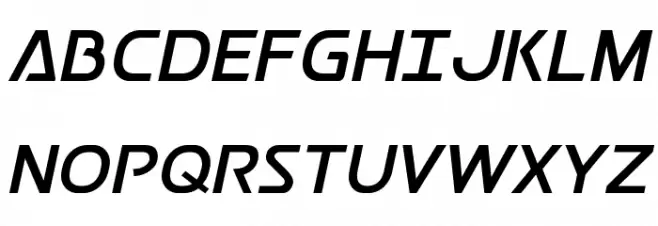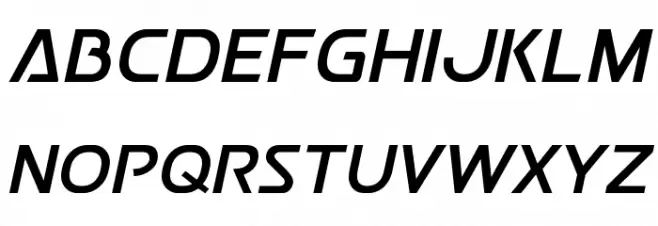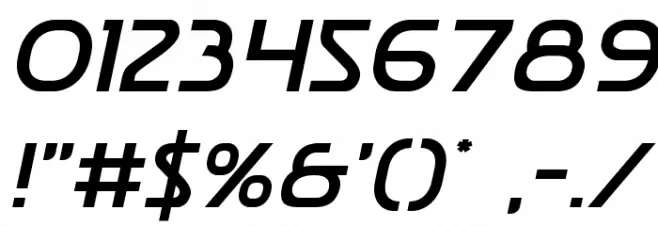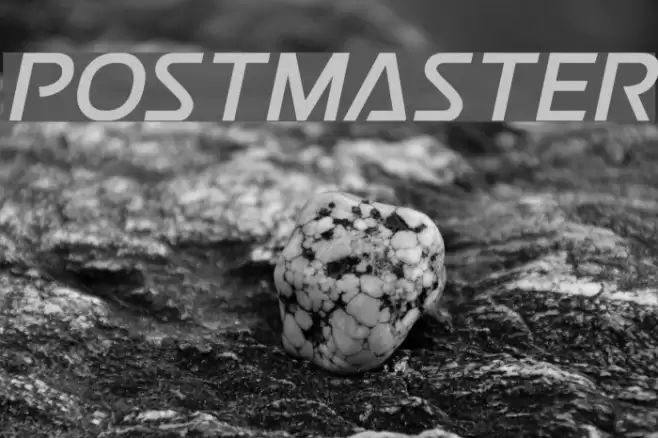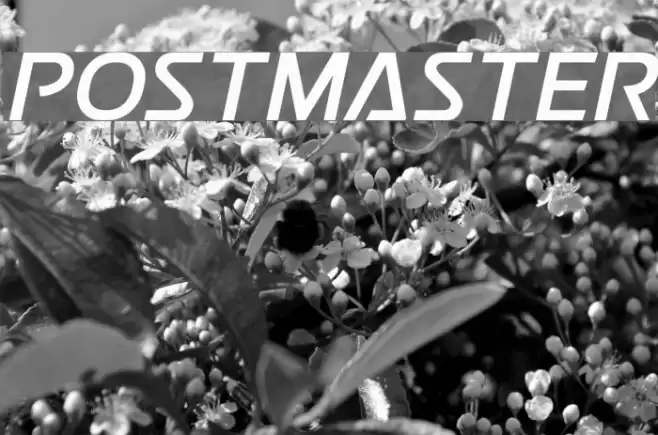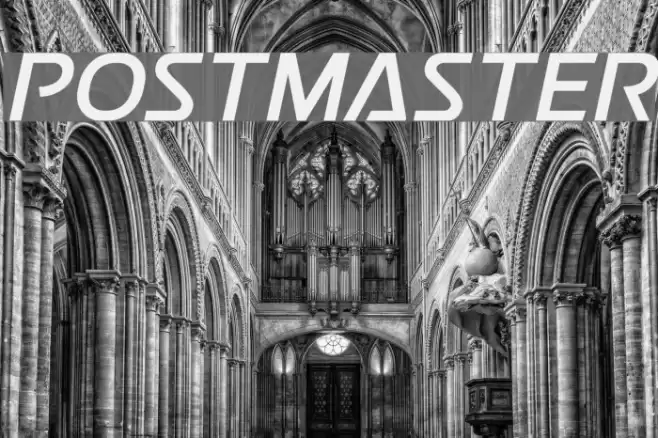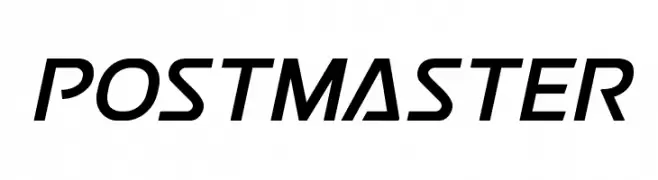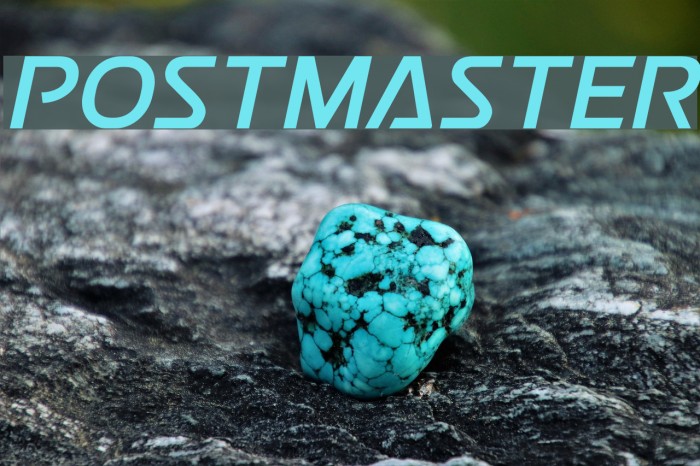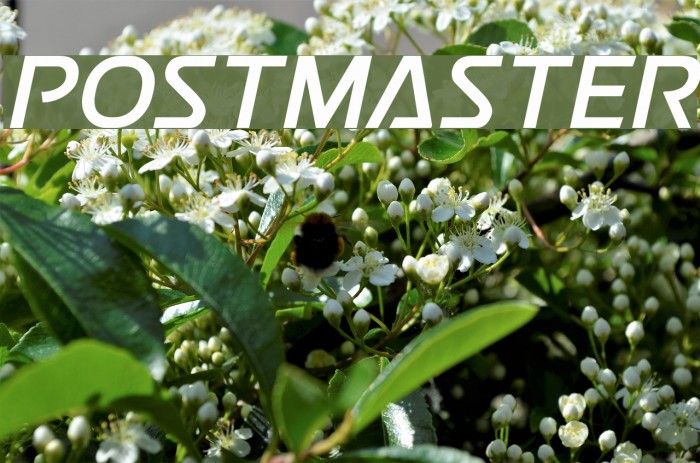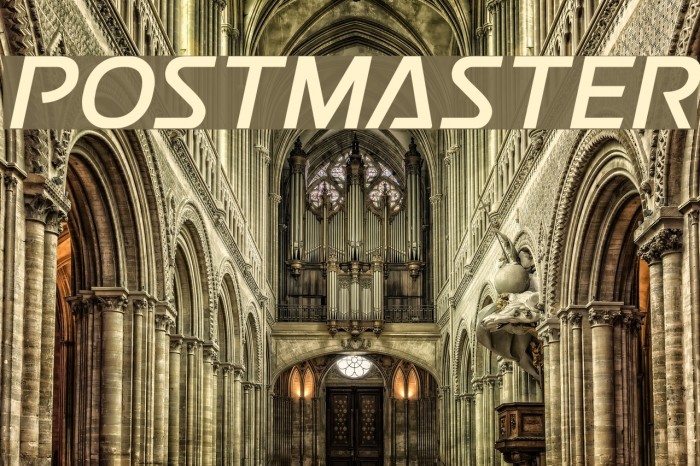
Postmaster
This font features a sleek, modern design with a slight italic slant, giving it a dynamic and forward-moving appearance. The characters are well-defined with consistent stroke widths, providing a clean and professional look. The uppercase and lowercase letters maintain a uniform style, while the numerals are clear and easy to read. The special characters complement the overall aesthetic, making it versatile for various applications. Its contemporary style is suitable for both digital and print media, offering a balance between readability and style.
A modern, italicized font with clean lines and consistent stroke widths.
- Proposed Projects: Ideal for branding, advertising, digital media, and editorial design projects.